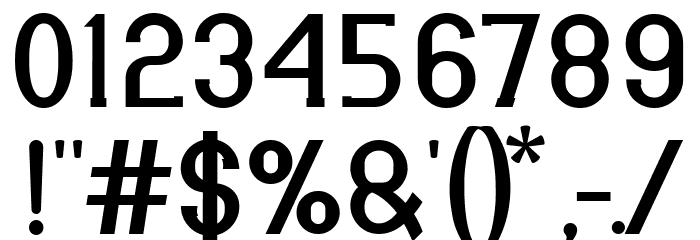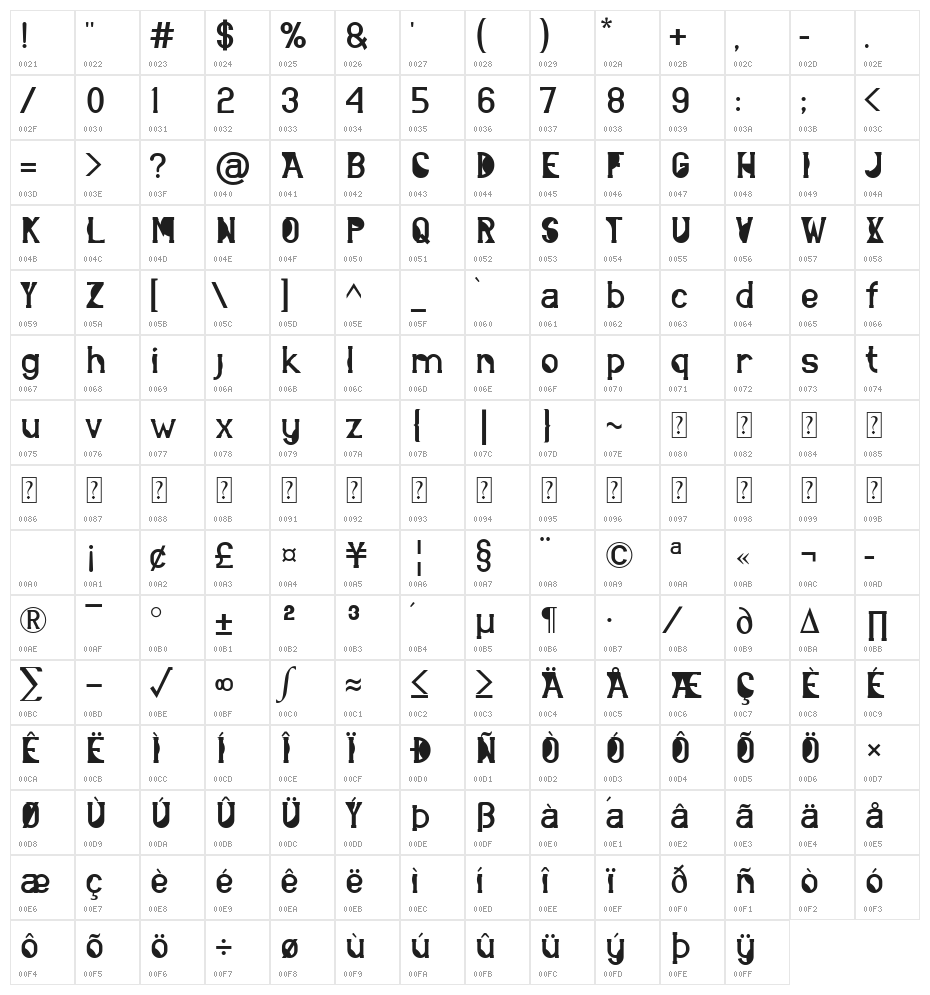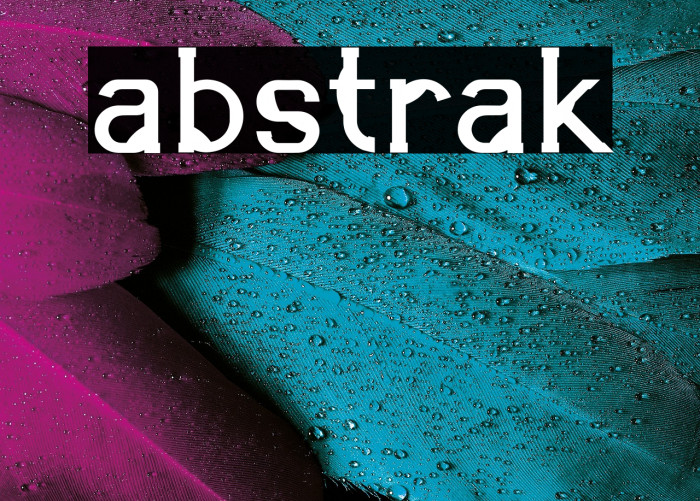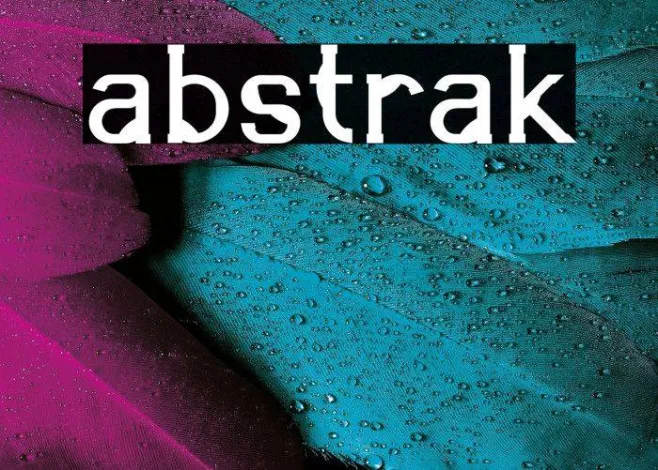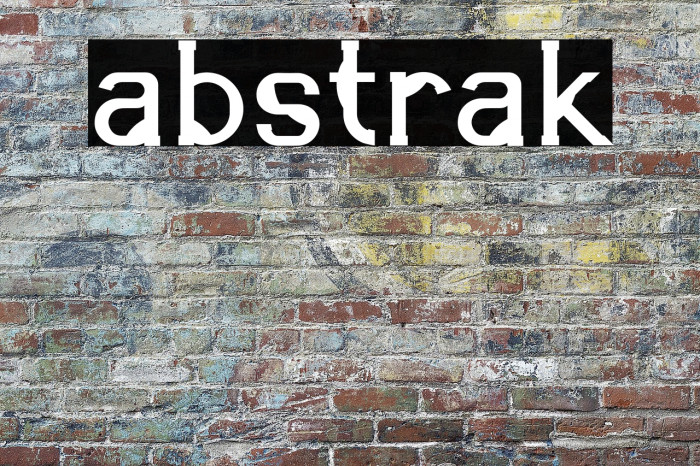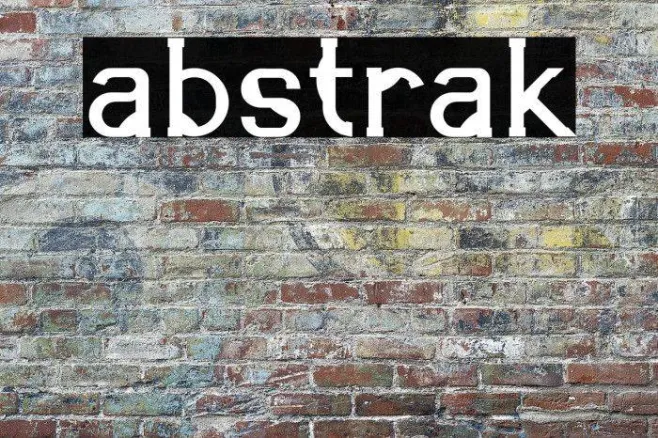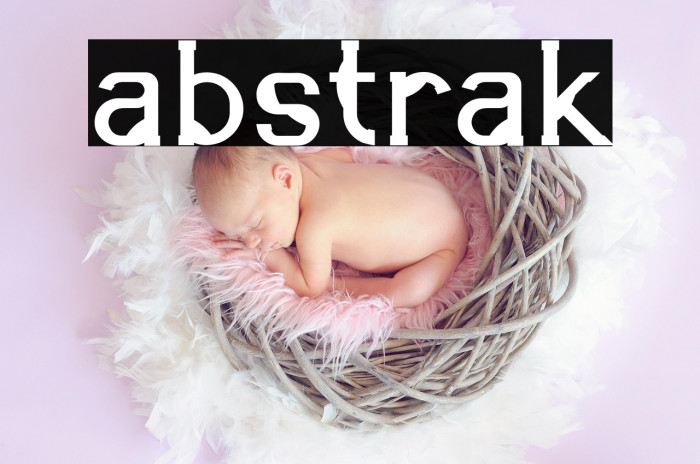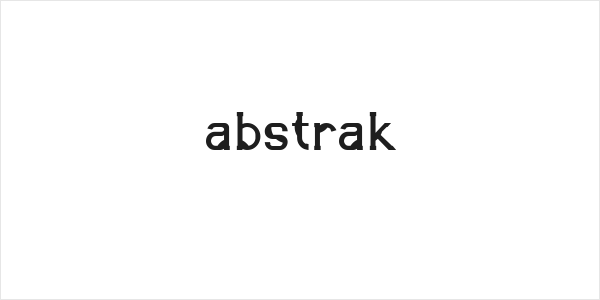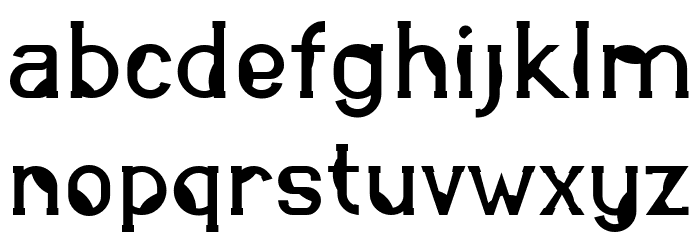
abstrak Font
abstrak Description
This font features a unique and bold design with a modern twist. The uppercase letters are characterized by sharp angles and geometric shapes, creating a striking and memorable appearance. The lowercase letters maintain a consistent style, with a slightly more rounded approach, providing a nice contrast to the uppercase. The numerals are clear and bold, ensuring readability. Special characters are designed to match the overall aesthetic, making this font versatile for various uses. The overall style is decorative, making it suitable for eye-catching designs.
| Proposed Projects | Ideal for posters, logos, branding, and any project requiring a bold and modern aesthetic. |